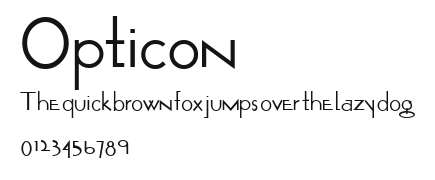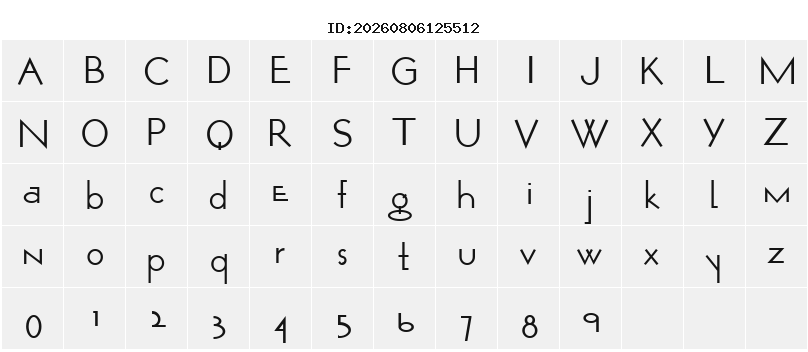
About Opticon.ttf
Opticon.ttf is a modern, elegant sans-serif font designed for ultimate readability and visual harmony. Perfect for branding, headlines, web design, and print materials.